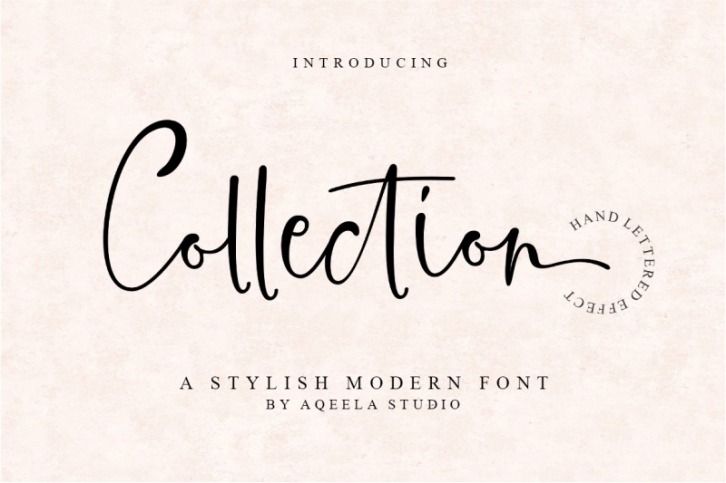
Collection is a natural handwritten font, this font is perfect for logos, invitations, stationery, wedding designs, social media posts, advertisements, product packaging, product designs, labels, photography, watermarks, special events or whatever.